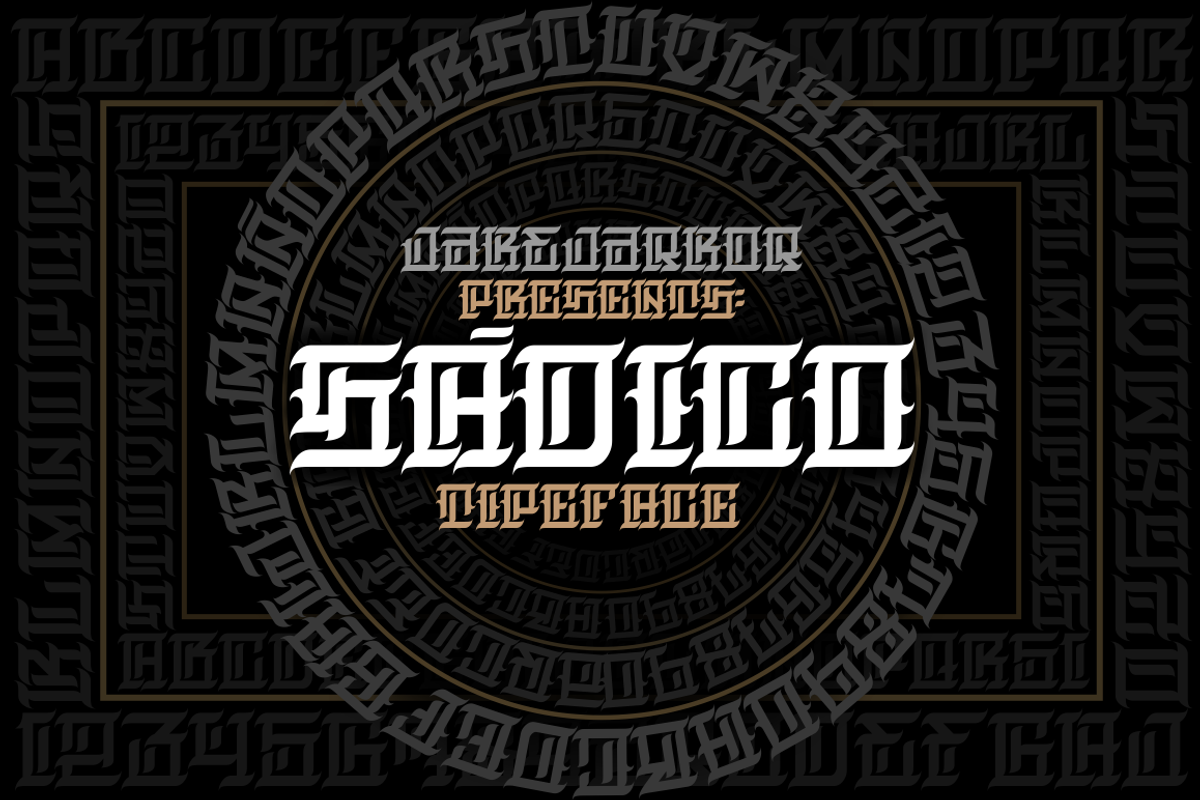
Bold, intense, and unapologetically edgy, SÁDICO Font Free Download is a high-impact display typeface made for designs that demand attention. Perfect for posters, album covers, branding, streetwear, and horror-themed visuals, this font channels a dark, rebellious energy with sharp lines and striking character.
SÁDICO is crafted to stand out with its aggressive styling and dramatic presence. Whether you're working on bold typographic layouts or aiming to create a raw, underground aesthetic, this font delivers with powerful visual weight.